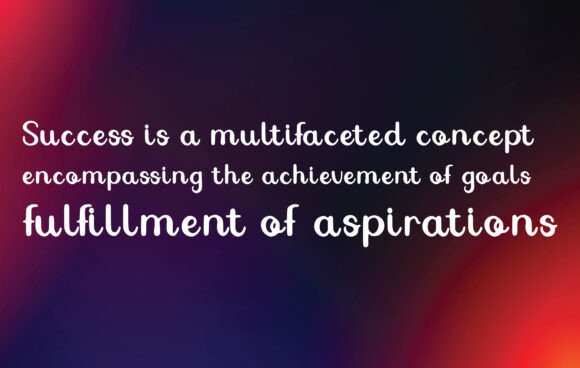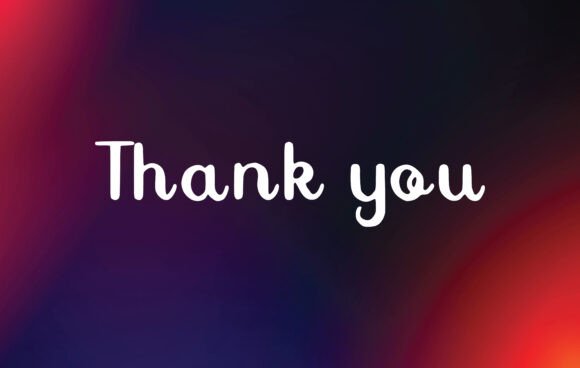
Introduction to Sloane Font
As a designer, there’s nothing quite like the rush of excitement you get when a new project sparks an idea. You sit down at your desk, laptop open, and your mind starts racing with possibilities. The blank page stares back at you, waiting for your creative touch. And that’s exactly when you need the right tools to bring your vision to life. That’s where the Sloane Font comes in – a beautiful, handwritten font that’s about to take your creative ideas to new heights.
Whether you’re working on a logo, branding, or quote, the Sloane Font is the perfect design resource to elevate your work. With its high-quality, elegant script, you’ll be able to add a touch of sophistication to any project. And the best part? It’s available for free download, complete with a transparent background, making it easy to integrate into your design.
Key Features of Sloane Font
- Characterized by its elegant and sophisticated style, making it perfect for high-end designs and luxury branding projects.
- Includes a comprehensive set of characters, including uppercase and lowercase letters, numbers, and punctuation marks.
- Designed to provide a clean and modern look, ideal for use in logos, typography, and other design elements.
Honest Review: Sloane Font
I recently stumbled upon the Sloane Font, and I must say it’s a great addition to any designer’s toolkit. The Sloane Font is a versatile design resource that can elevate your creative project with its elegant and sophisticated style.
- High-quality design: The Sloane Font features crisp, clean lines and a transparent background, making it perfect for projects that require a touch of sophistication.
- Easy to use: The Sloane Font is highly legible, even at small font sizes, making it a great choice for body text or headings.
- Limited font styles: The Sloane Font comes in a limited number of styles, which may not be ideal for designers who need a wide range of options.
- No bold or italic weights: While the Sloane Font is legible, it lacks bold and italic weights, which can make it less versatile in certain situations.
Overall, the Sloane Font is a solid choice for designers who need a high-quality, elegant font for their creative project. While it has some limitations, its free download and transparent background make it a valuable design resource.
Common Use Cases for Sloane Font
The Sloane Font is perfect for creating elegant and sophisticated designs, such as wedding invitations, business cards, or marketing materials. Use the font to create a unique and eye-catching visual element that sets your design apart from the rest.